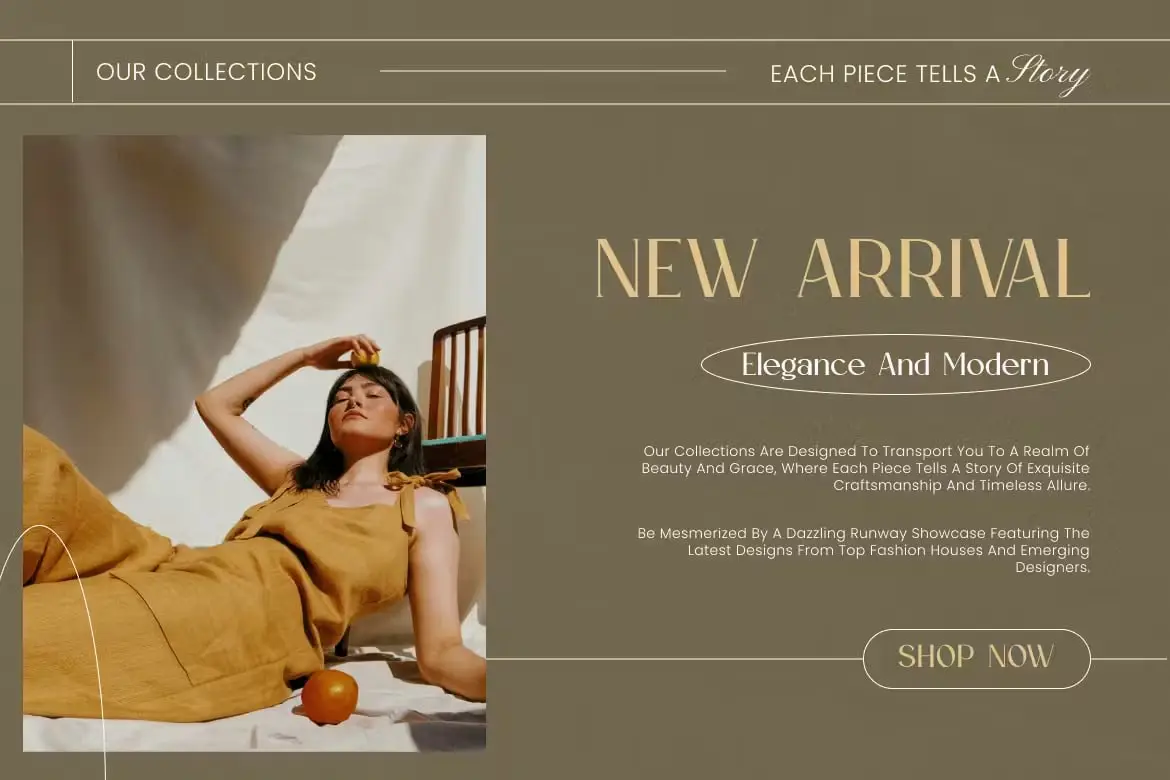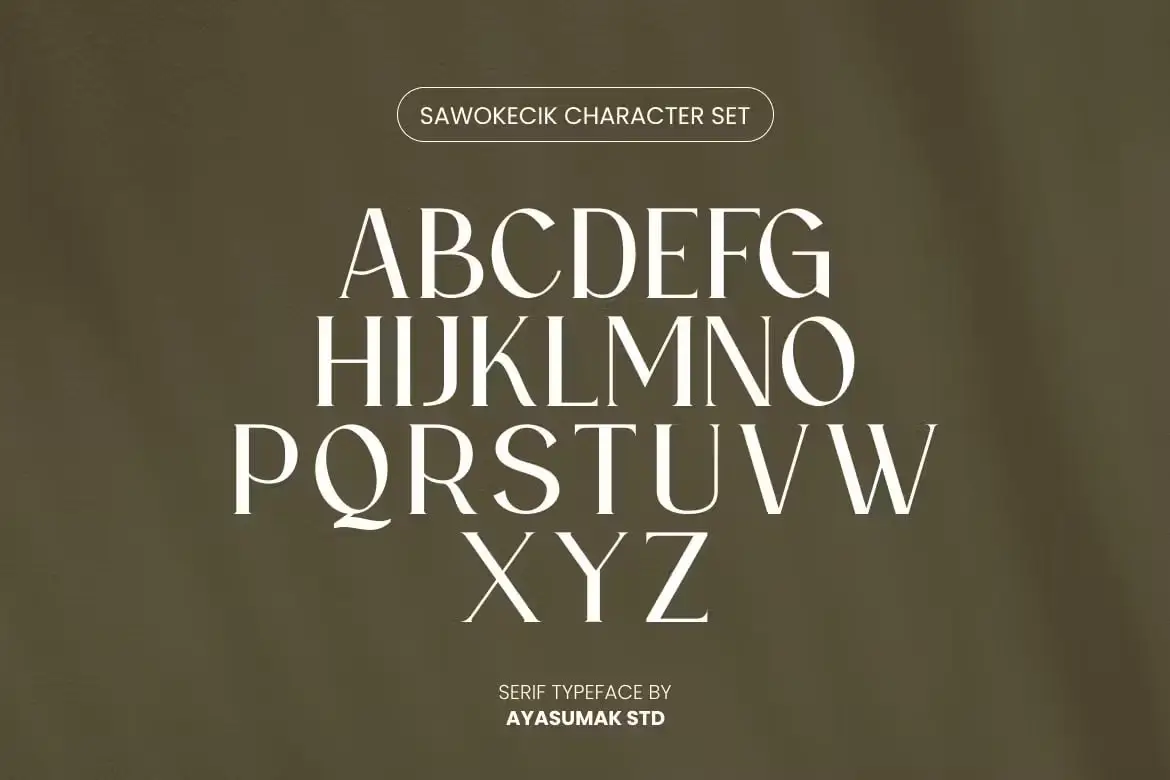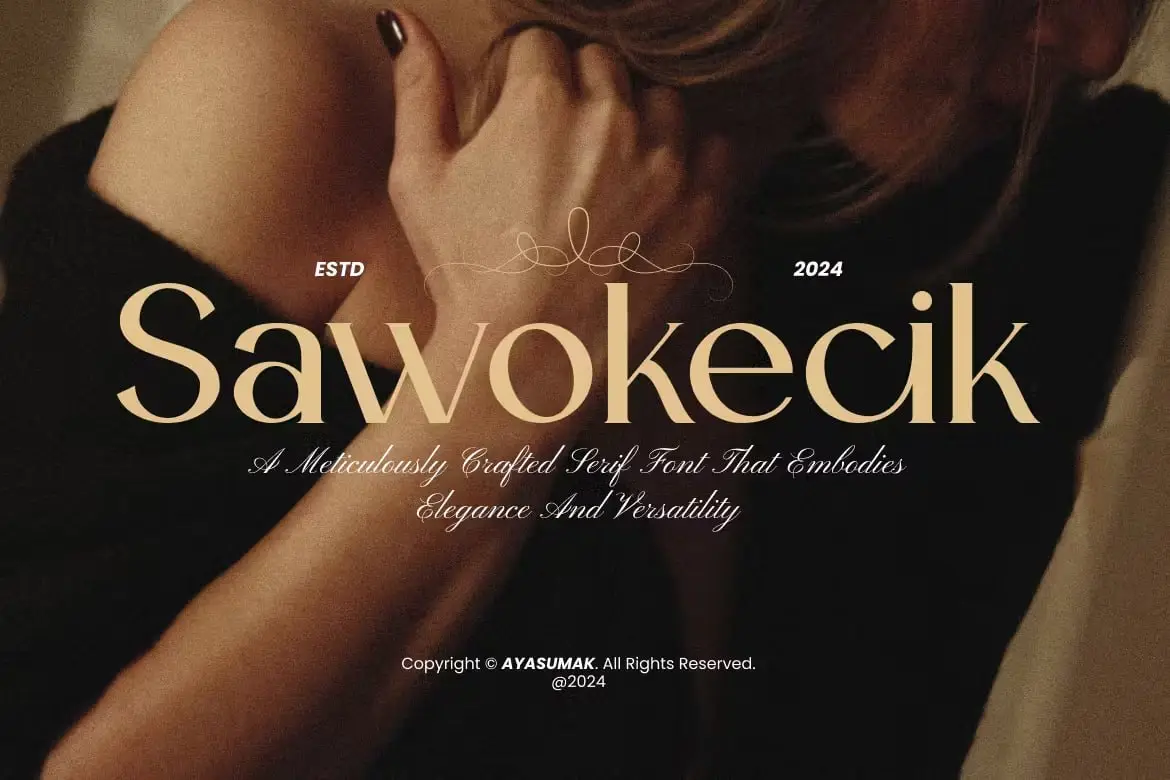
Sawokecik-Vintage Elegant Serif Font
The Sawokecik Vintage Elegant Serif Font is a beautifully crafted typeface that combines classic elegance with a modern touch. Perfect for a variety of design projects, this font is ideal for branding, logos, invitations, and more.
• Stylish serif design that adds sophistication
• Multiple weights for versatile usage
• Uppercase and lowercase letters, numerals, and punctuation
• Easy to read, making it suitable for both print and digital applications
• Ideal for elegant branding and high-end product packaging
• Great for wedding invitations, greeting cards, and other printed materials
• Can be used in web design for a sophisticated look